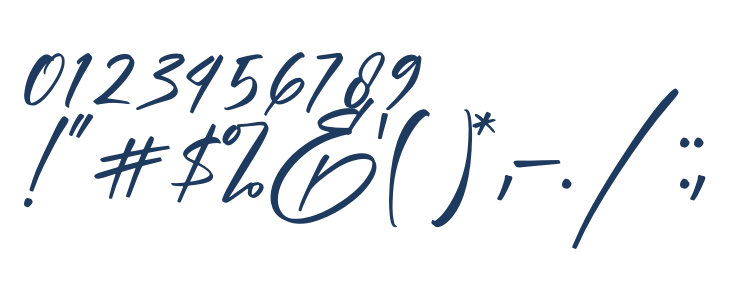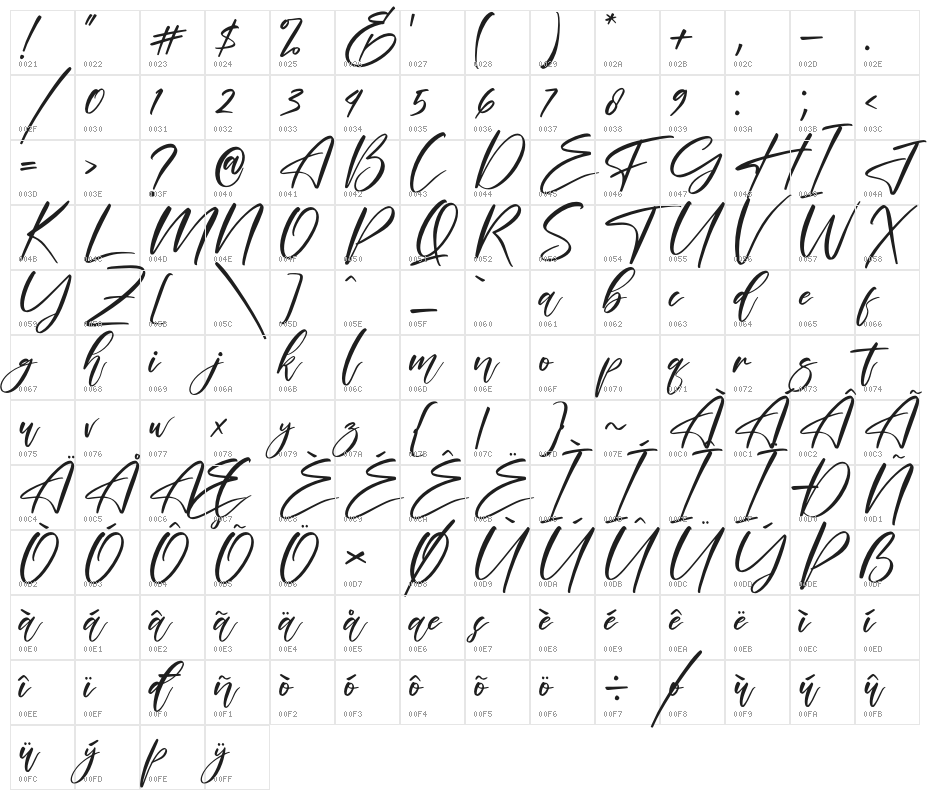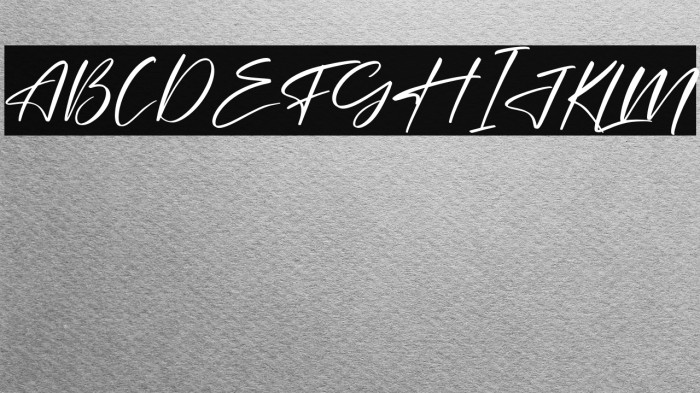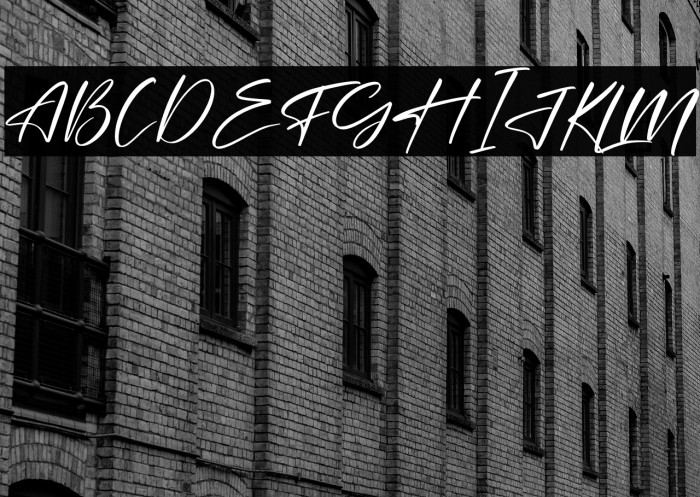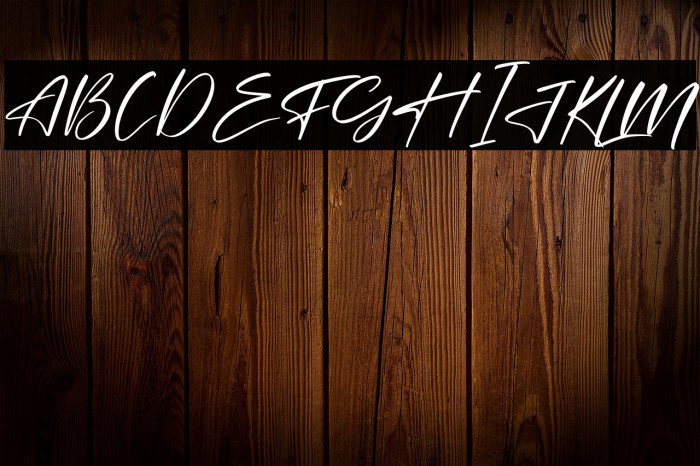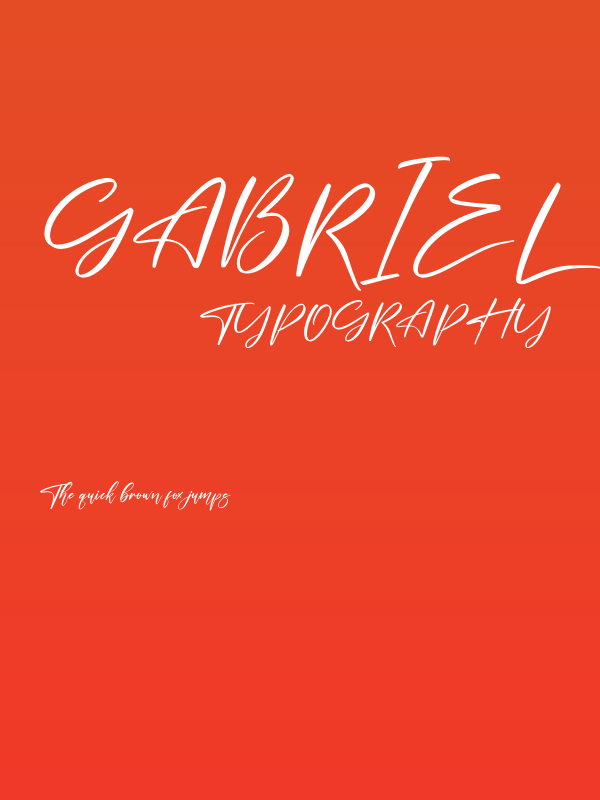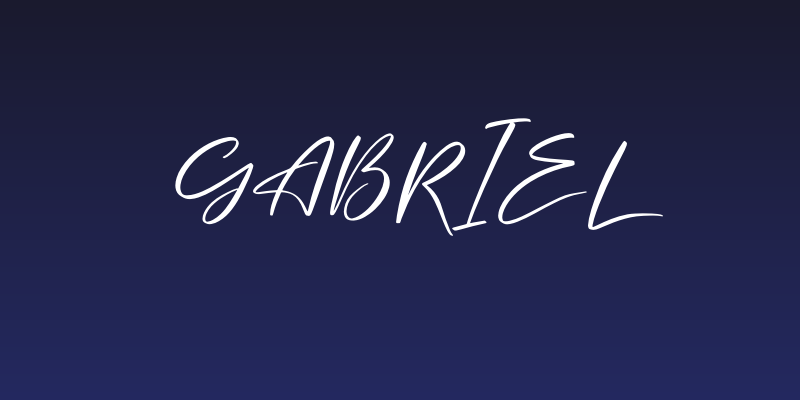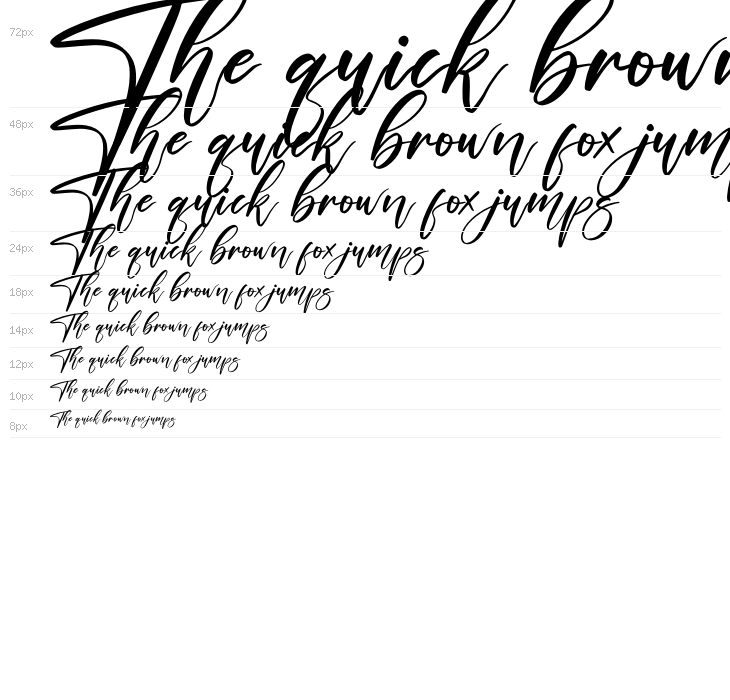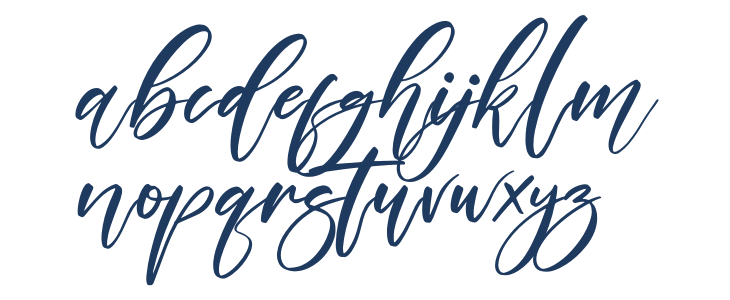
Gabriel Font
Gabriel Description
This font features a dynamic and expressive script style, characterized by its fluid and flowing letterforms. The uppercase letters are bold and slightly slanted, giving a sense of movement and elegance. The lowercase letters maintain a consistent style, with smooth curves and a natural handwritten appearance. The numbers and special characters are designed to complement the overall aesthetic, maintaining the same energetic and lively feel. This font is perfect for projects that require a personal touch, such as invitations, greeting cards, and branding materials. Its unique style makes it stand out, while still being legible and versatile.
| Use Case | Logos, Headlines, Invitations |
| Proposed Projects | Ideal for invitations, greeting cards, branding, and any project needing a personal touch. |